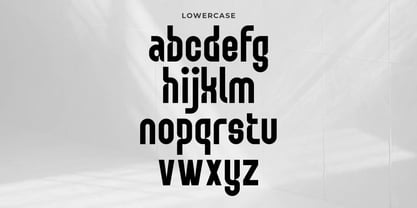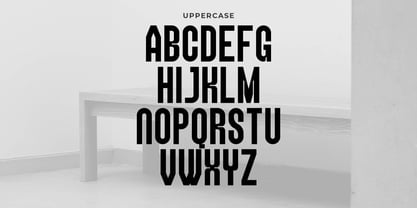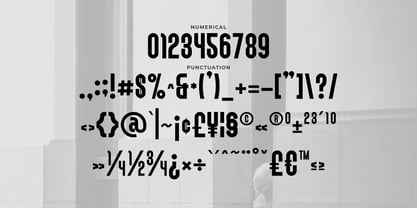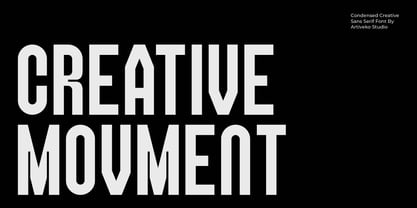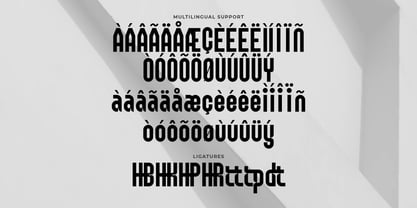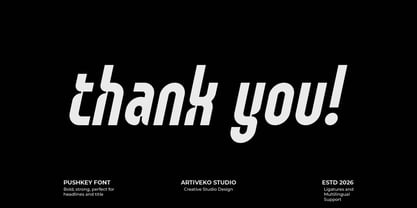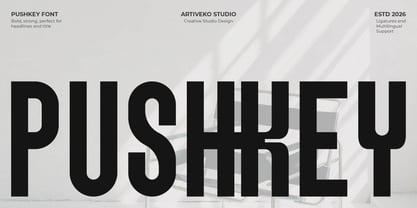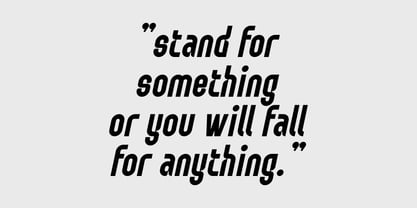
Pushkey
by Artiveko
The Pushkey Font Family was designed by Iwan Alwan and published by Artiveko. Pushkey contains 2 styles and family package options. More about this family
Pushkey is a modern condensed sans serif typeface crafted to deliver a strong visual impact while optimizing space efficiency. Featuring tall proportions, clean lines, and a sleek narrow structure, Pushkey excels in creating bold headlines and striking layouts without overwhelming the overall composition. Ideal for posters, branding, editorial headlines, advertising, packaging, and digital design, Pushkey empowers designers to create powerful typography even in limited spaces. Its contemporary design ensures excellent readability while infusing a confident modern aesthetic into both print and screen projects. Pushkey is a versatile condensed typeface that enhances clarity, strength, and modern energy in creative design, making it a perfect choice for various applications.
Designers: Iwan Alwan
Current Foundry: Artiveko